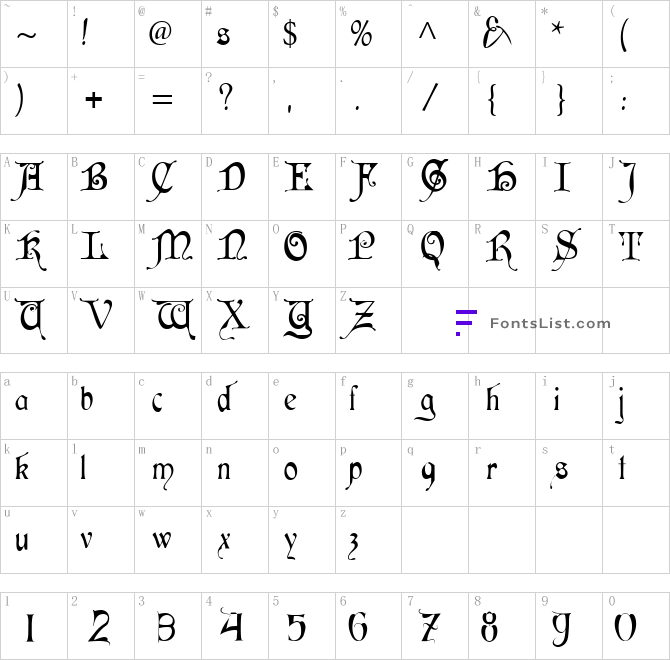
- Font Name:Cardinal Alternate
Cardinal-Alternate.ttf is a very beautiful artistic font, Cardinal-Alternate.ttf is widely used in the design and printing of various books and pictures,Cardinal-Alternate.ttf has a strong visual impact,Cardinal-Alternate.ttf is a commonly used font in newspapers, magazines and books, and is used in posters, e-commerce Poster design, store design, logo design, font design and other fields.Cardinal-Alternate.